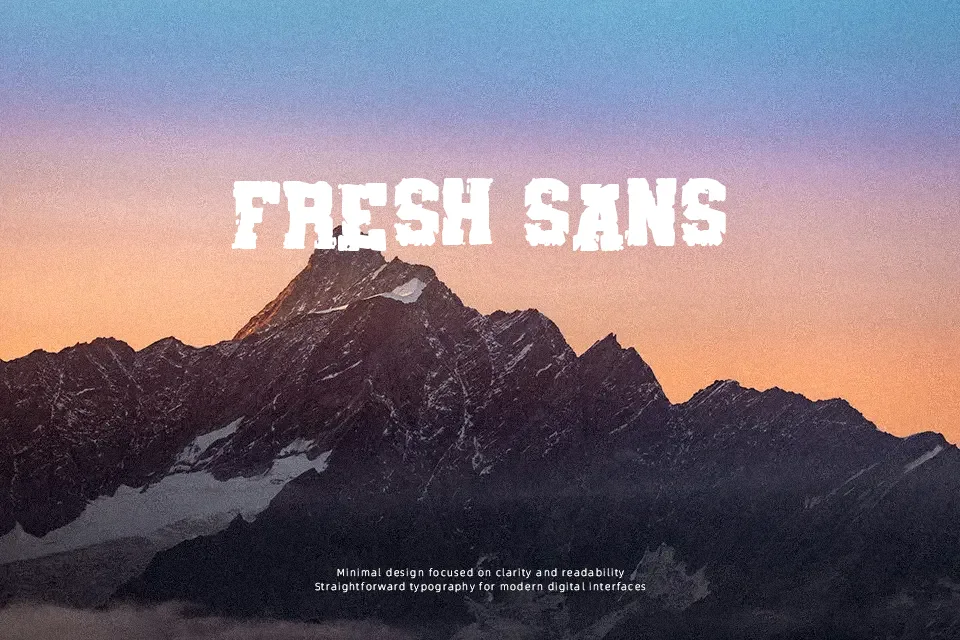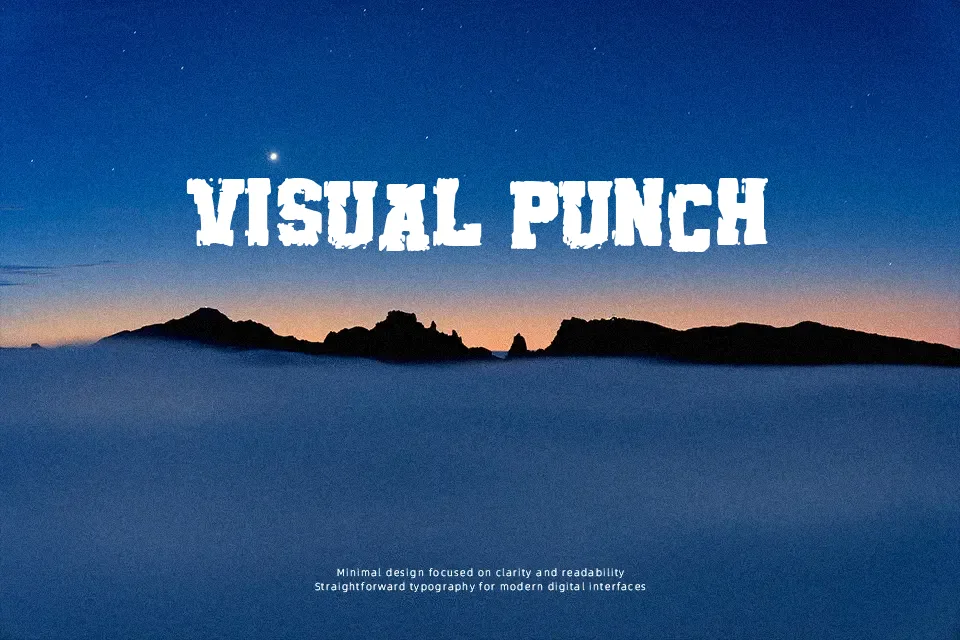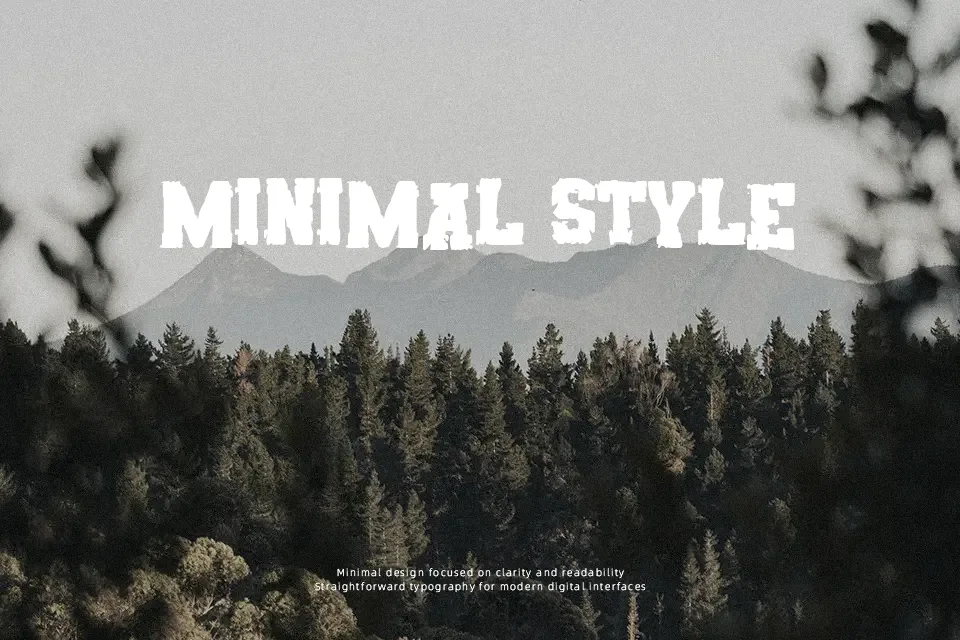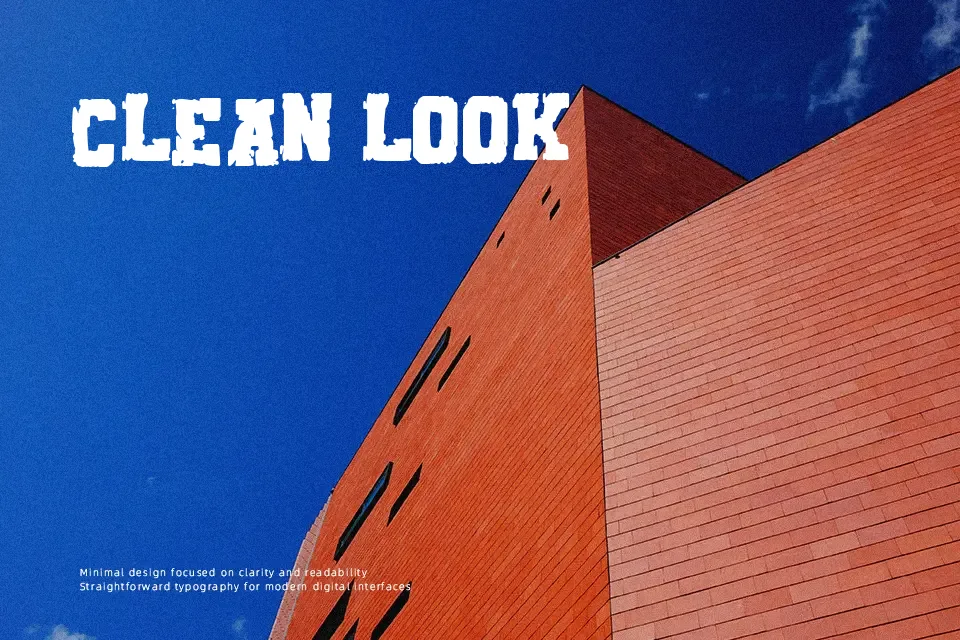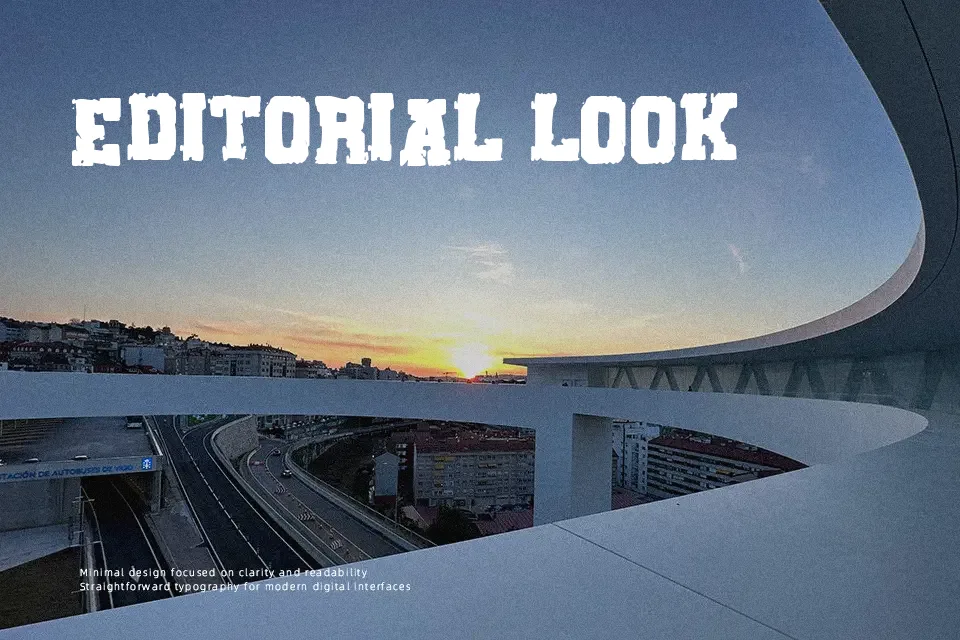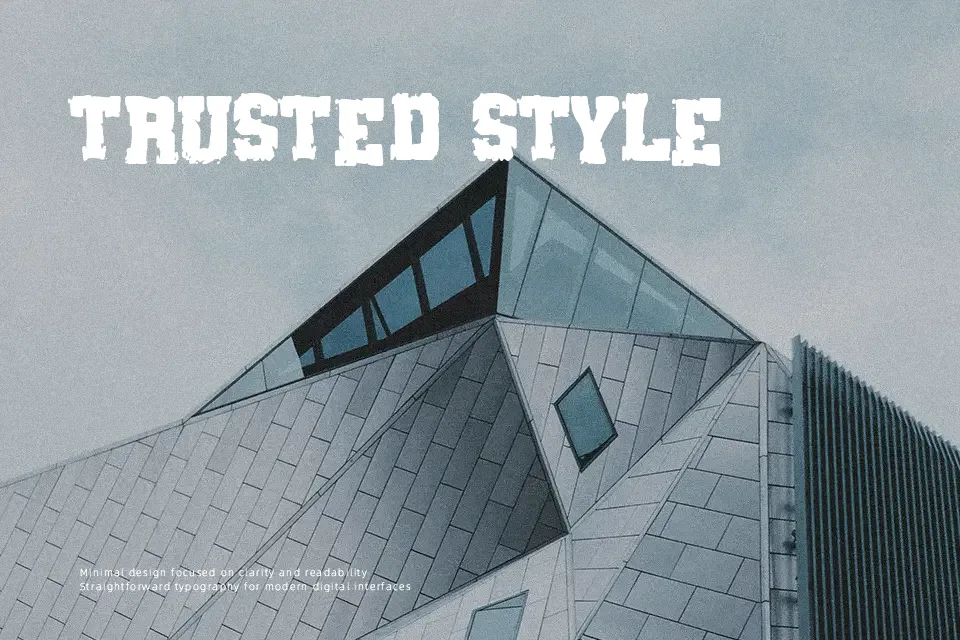
Rats College Font
Rats College Font features heavily eroded structural letterforms that instantly deliver a rugged, distressed appearance. The thick, blocky strokes are broken up by aggressive texturing, giving the characters a weathered and decayed aesthetic. This high-impact display typeface thrives in large applications like music festival posters, rebellious streetwear graphics, and dramatic headline layouts. The rough texture creates a compelling visual rhythm that immediately captures attention. However, these same heavy decorative details cause the letterforms to lose definition and become difficult to decipher at smaller sizes. The dense forms and fragmented edges significantly reduce reading comfort in long paragraphs, making it strictly suited for short, prominent statements rather than continuous reading.
vintage apparel graphics, grunge music posters, edgy streetwear branding, dramatic headline layouts
small paragraph text, corporate financial reports, dense editorial layouts, mobile interface labels
Perfect for branding, headline, and poster, with a bold and decorative style.